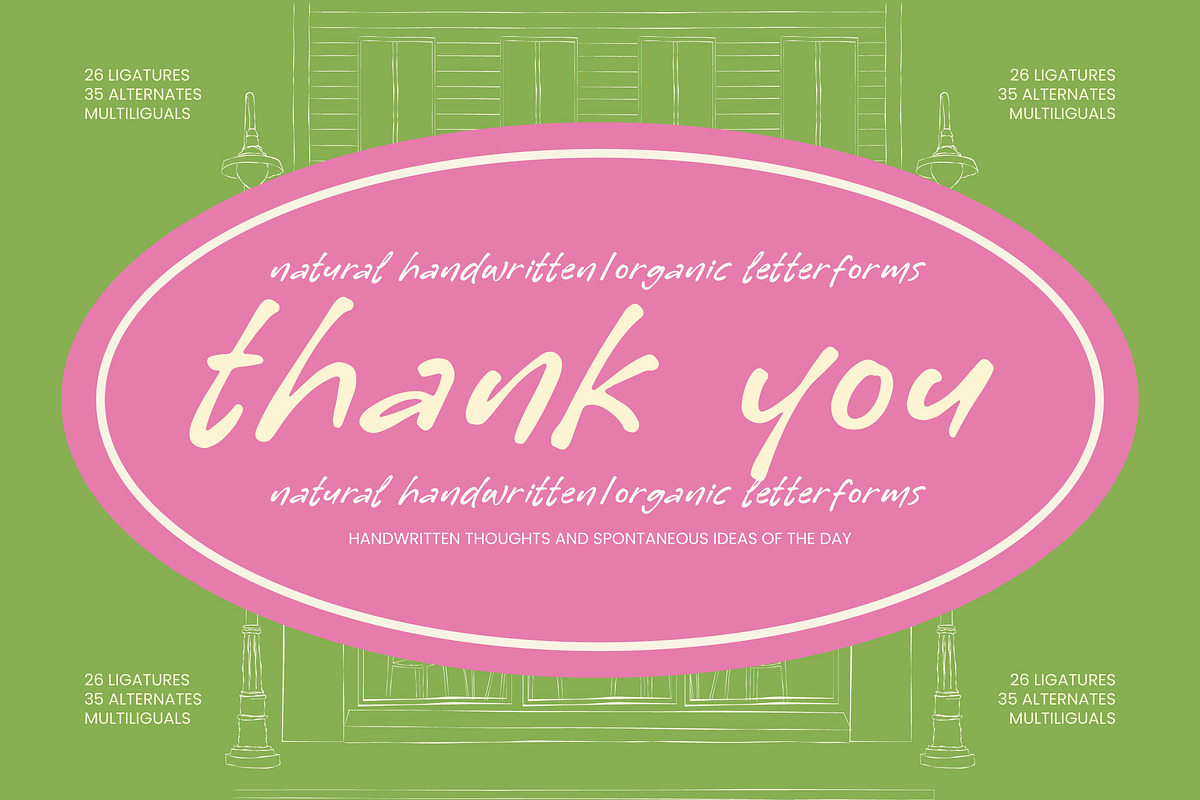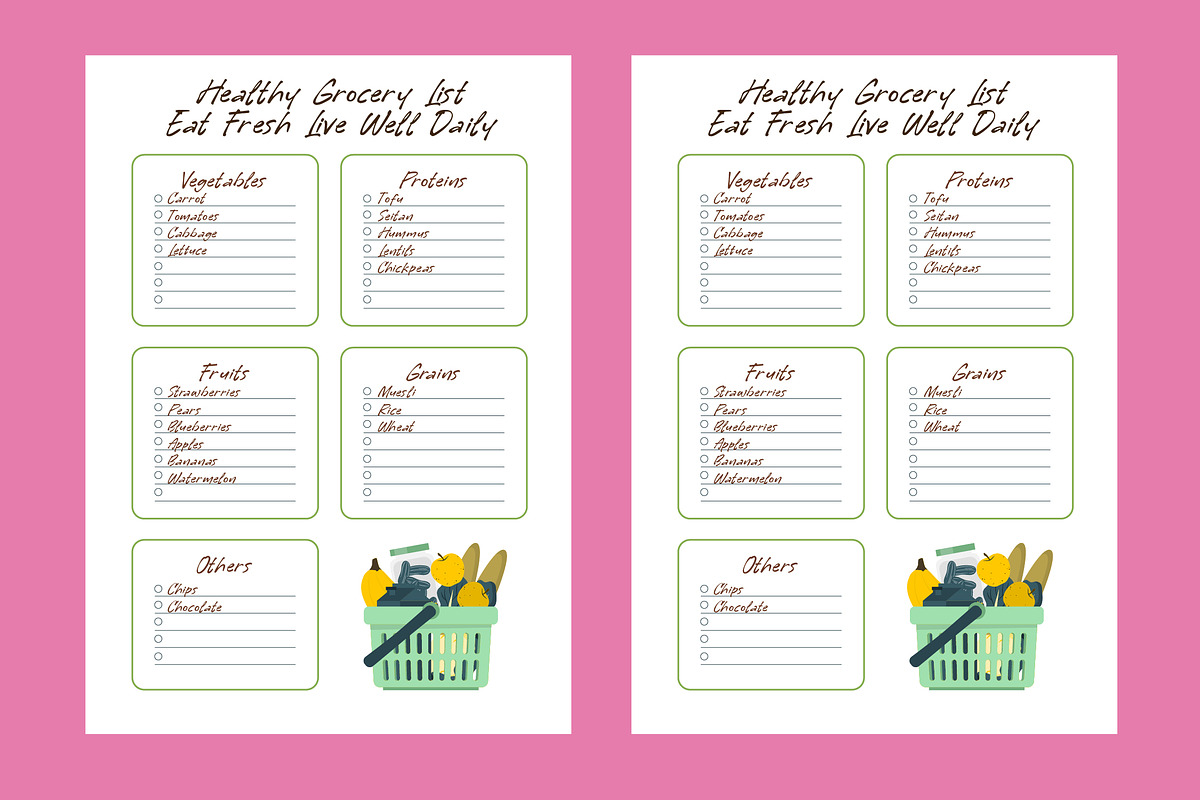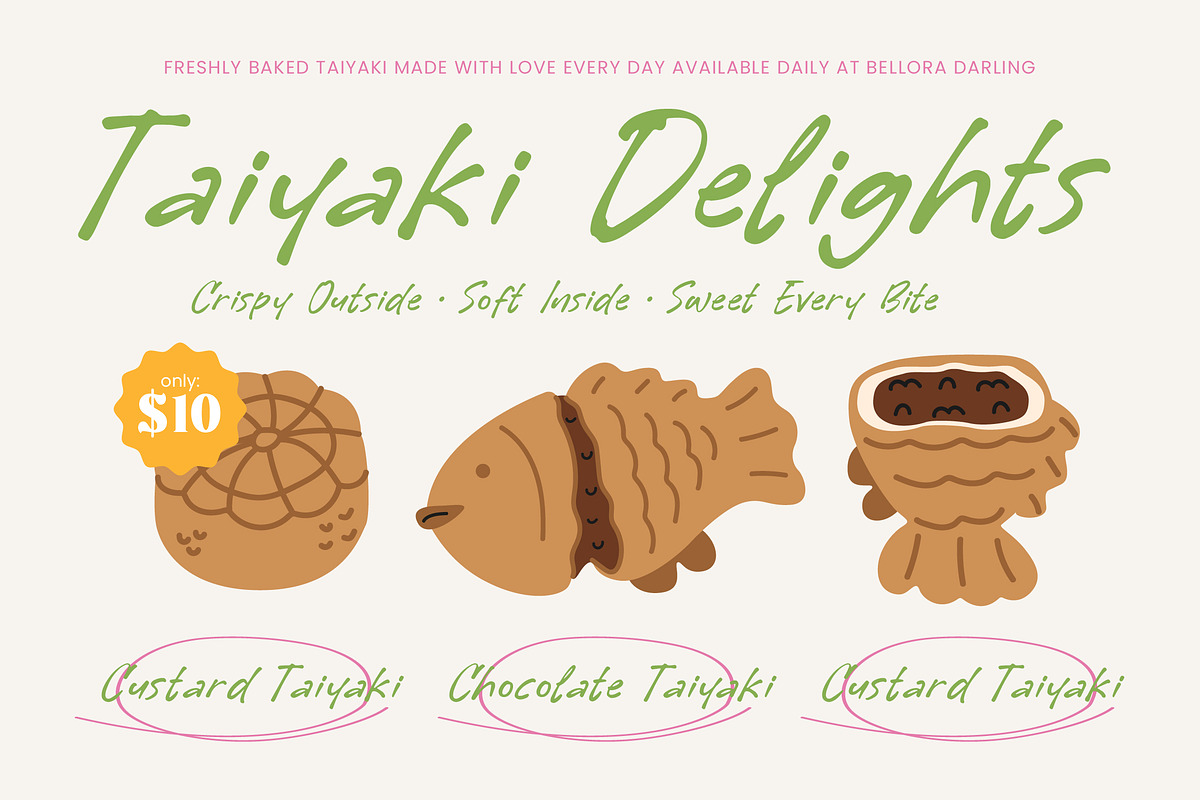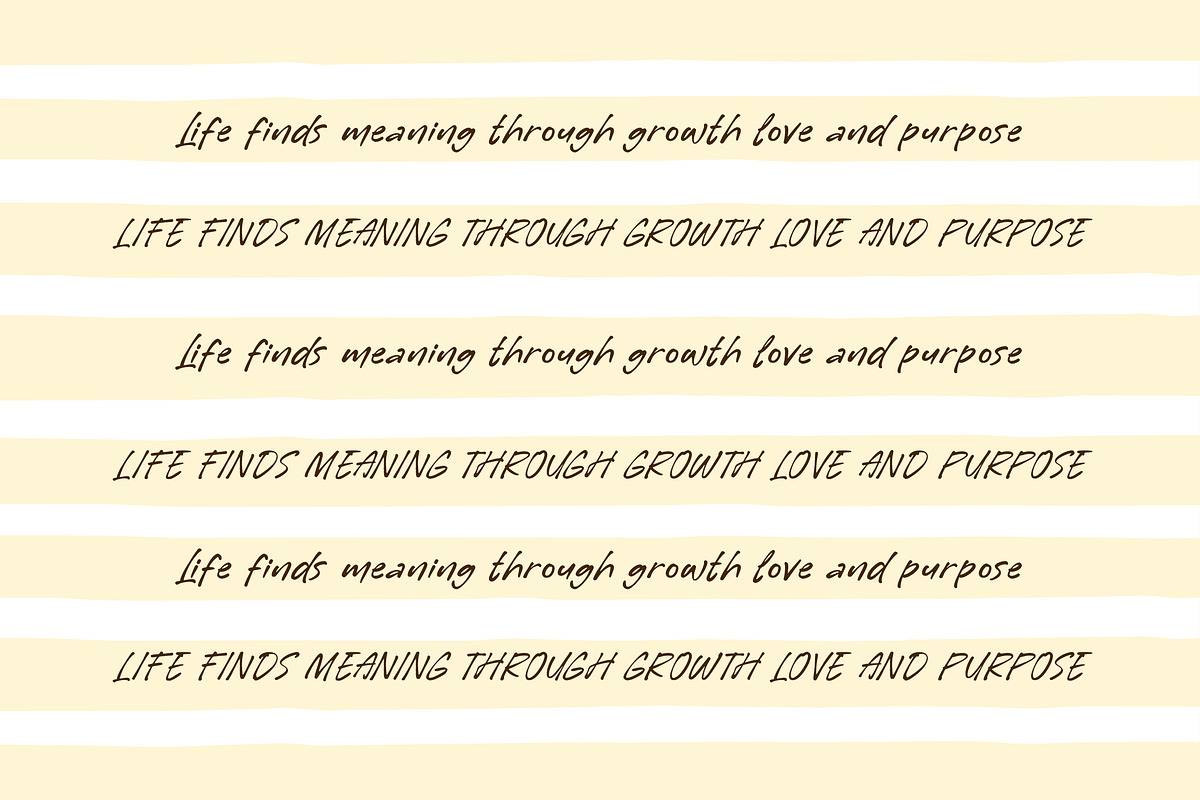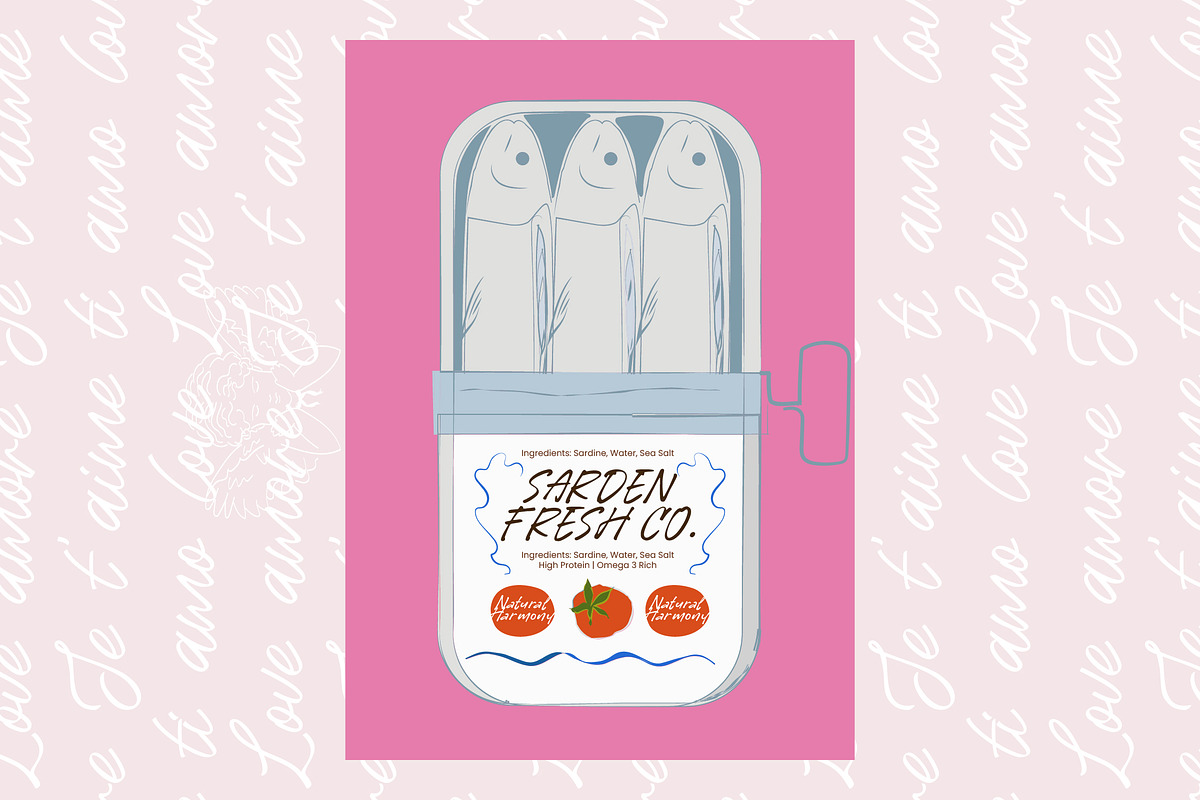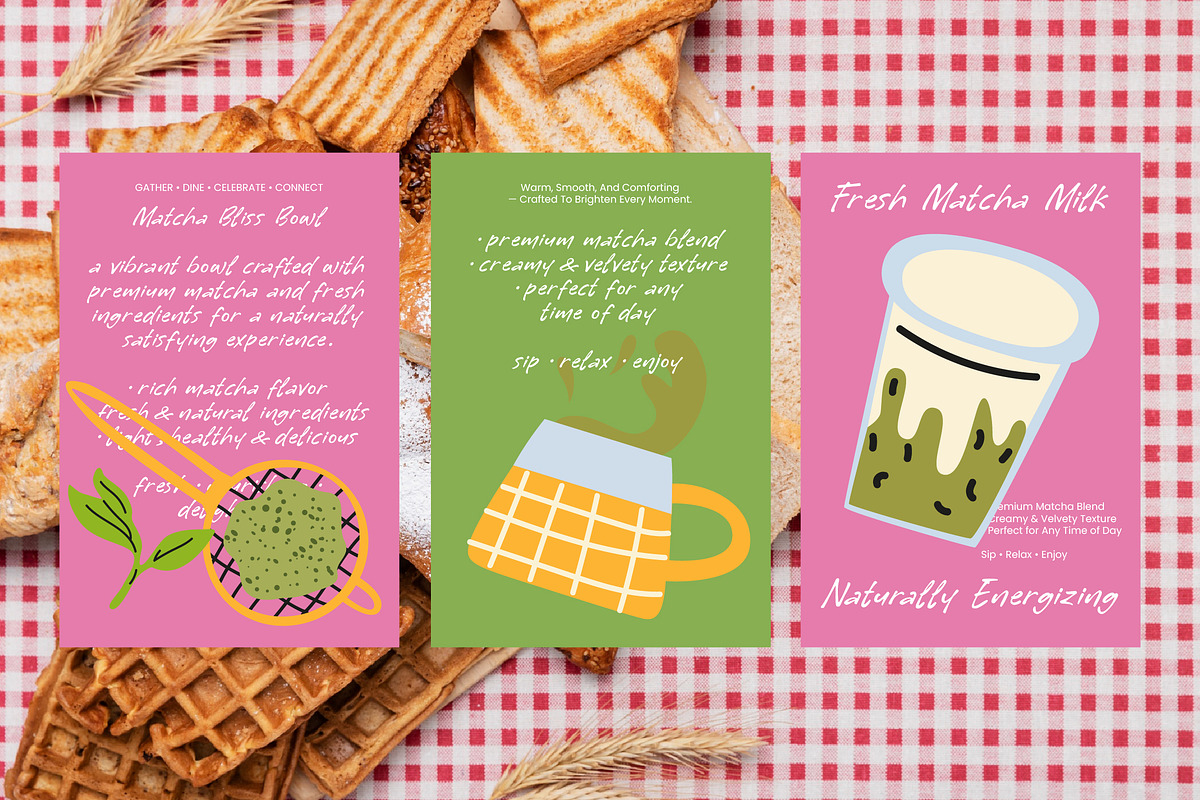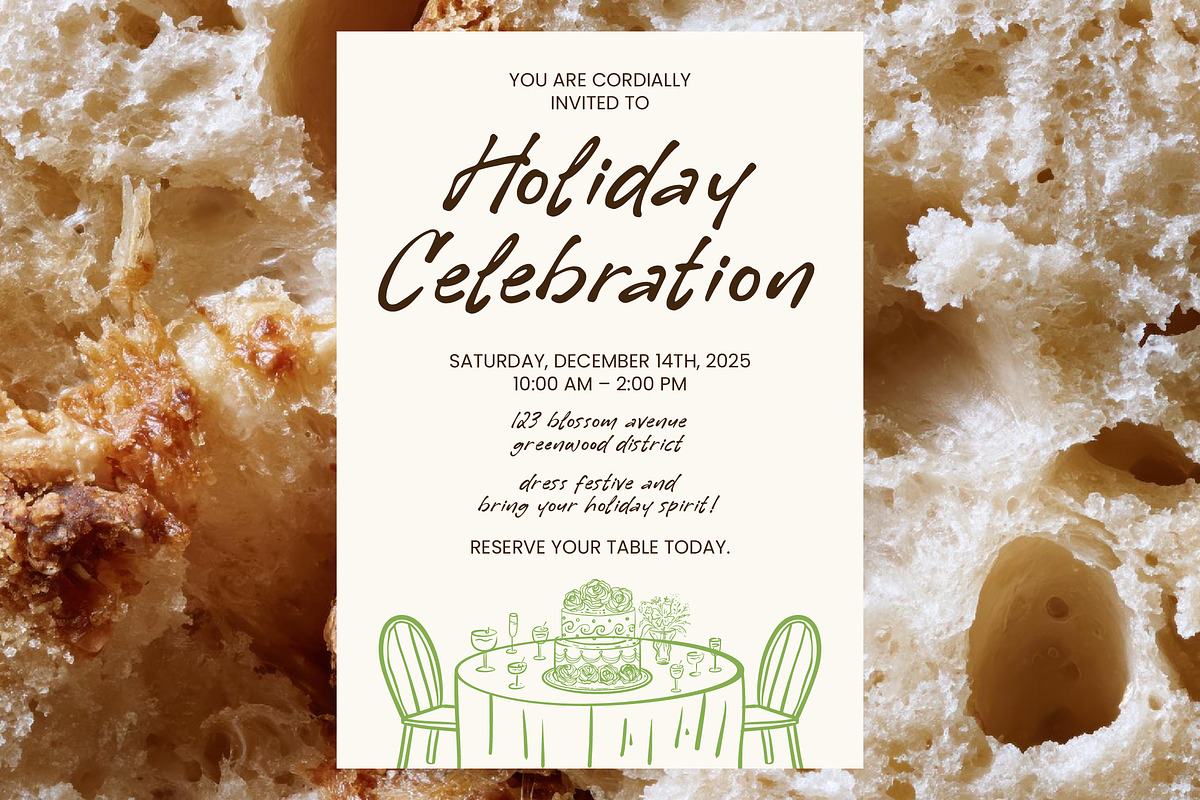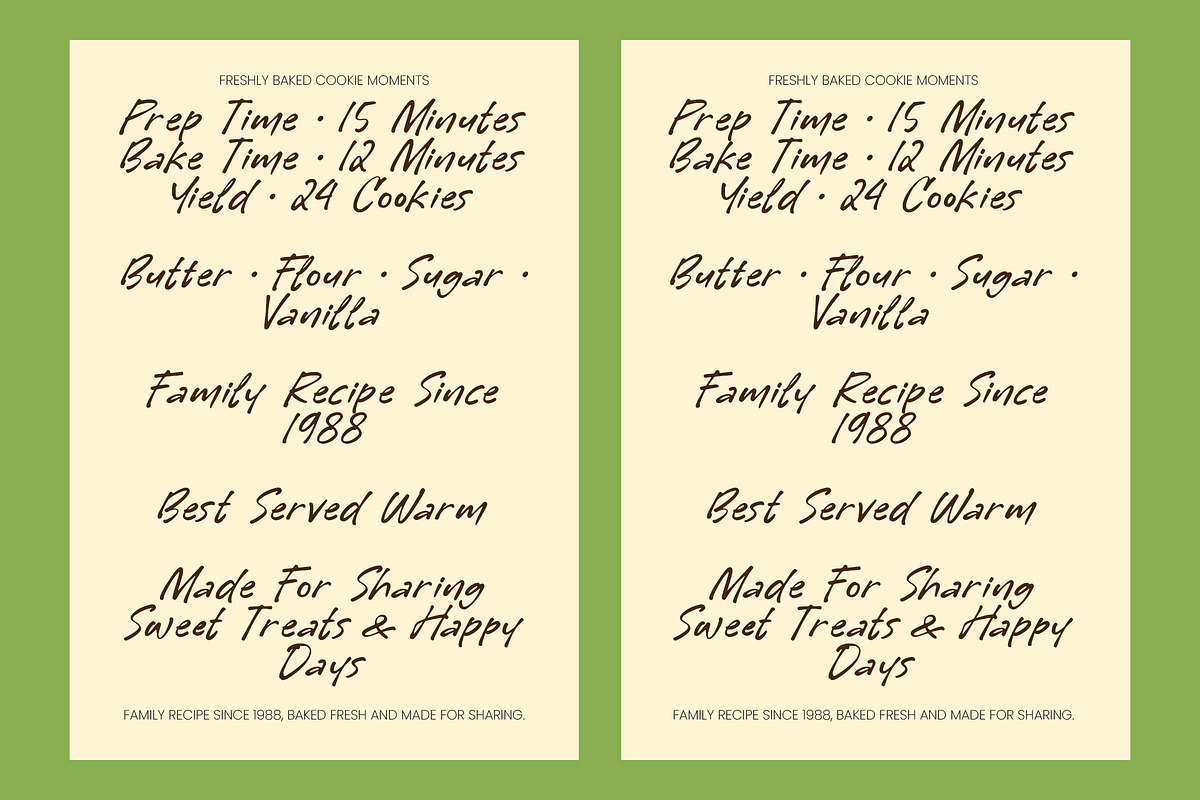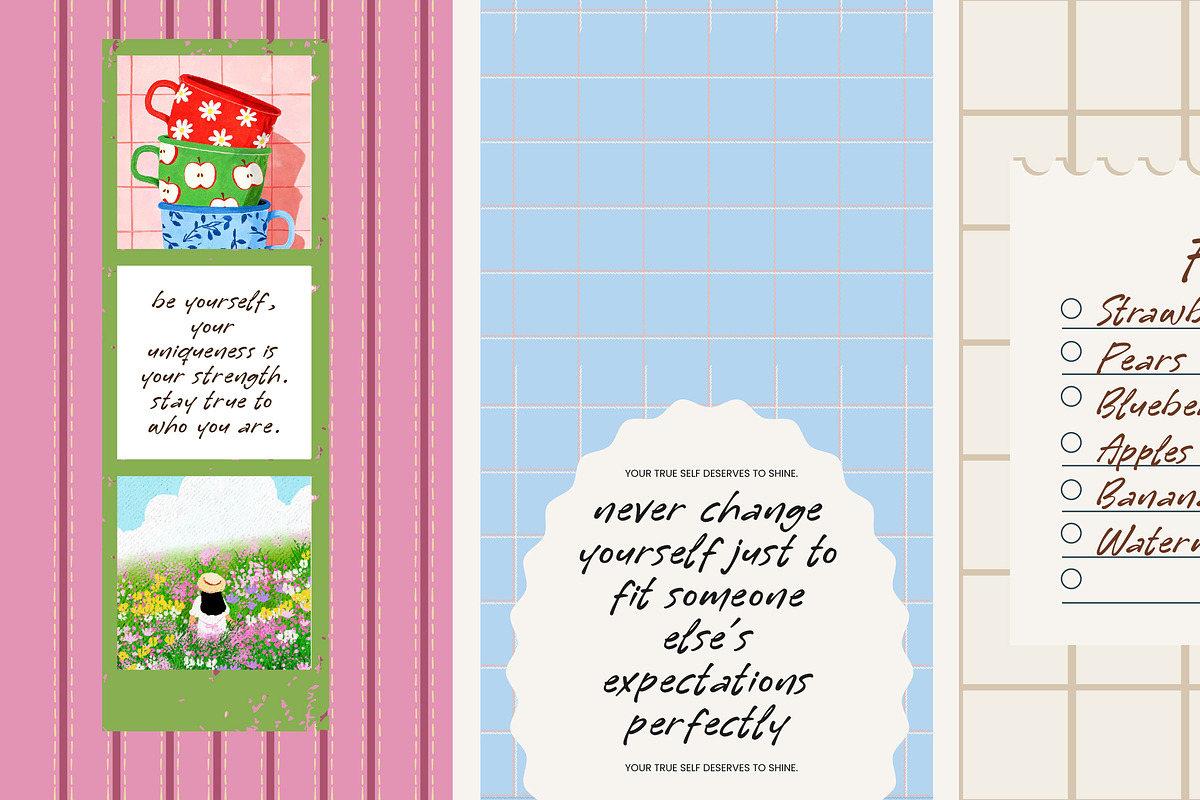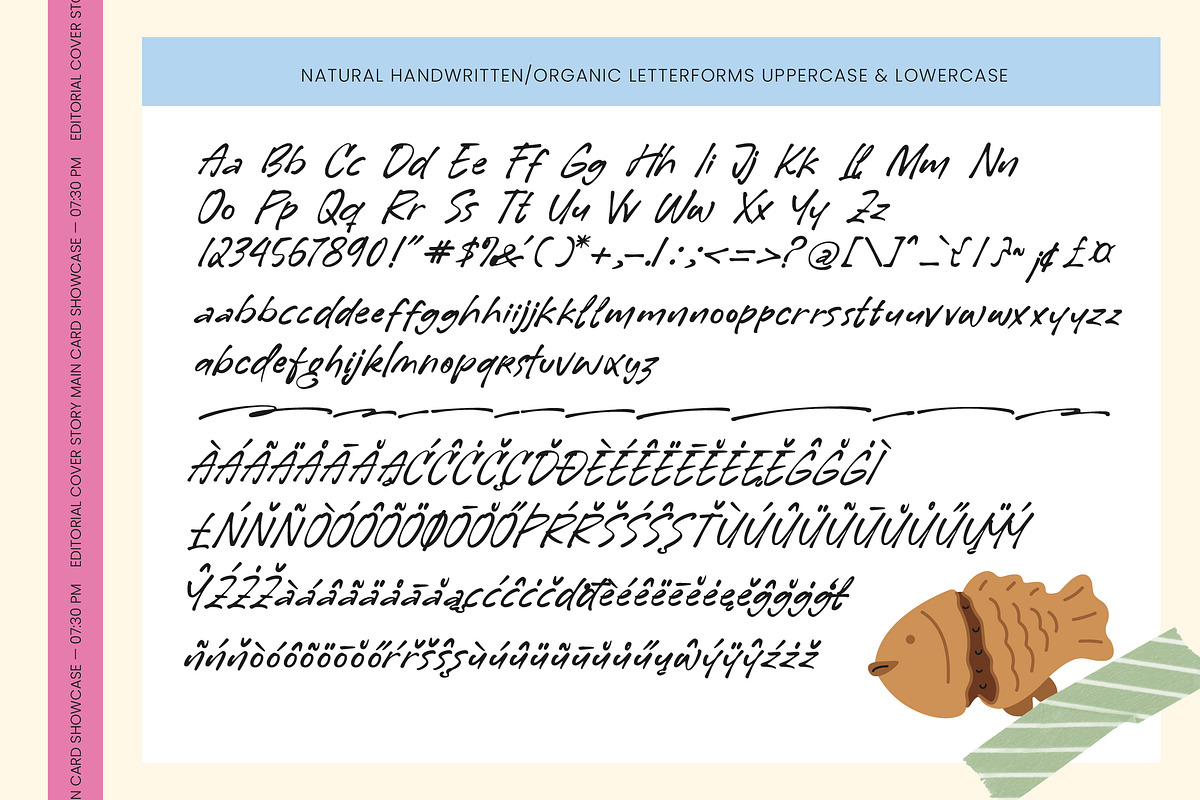
Bellora Darling Natural Handwritten
Bellora Darling - Natural Handwritten , Elevate your design aesthetic with Bellora Darling - Natural Handwritten, a typeface that captures the essence of authentic organic letterforms. This font translates the warmth of human touch into a digital format, offering a relaxed and spontaneous vibe that resonates with modern audiences. Whether you are aiming for a personal feel or a professional hand-drawn look, Bellora Darling - Natural Handwritten provides the perfect balance of elegance and approachability.
Engineered for maximum creative flexibility, Bellora Darling - Natural Handwritten features an impressive array of 26 ligatures and 35 stylistic alternates. These specialized features allow designers to craft truly bespoke typography that avoids repetitive patterns, ensuring that every word looks unique and natural. The fluid strokes and dynamic rhythms make it an essential tool for creators who demand high-quality typographic depth and visual character.
With its extensive multilingual support, Bellora Darling - Natural Handwritten adapts seamlessly across global markets, making it incredibly versatile for international projects. This global compatibility ensures that your brand voice remains consistent and impactful across different languages and regions. By providing comprehensive character sets, Bellora Darling - Natural Handwritten empowers designers to scale their creative campaigns to a worldwide audience without compromising on style or legibility.
This versatile typeface is the ideal solution for a wide range of high-end projects, including luxury branding, custom packaging, and lifestyle editorial design. It is perfect for logo design, social media storytelling, and boutique stationery where a sense of personal connection is paramount. Choose Bellora Darling - Natural Handwritten to transform your visual identity into a compelling narrative that feels both sophisticated and intimate.